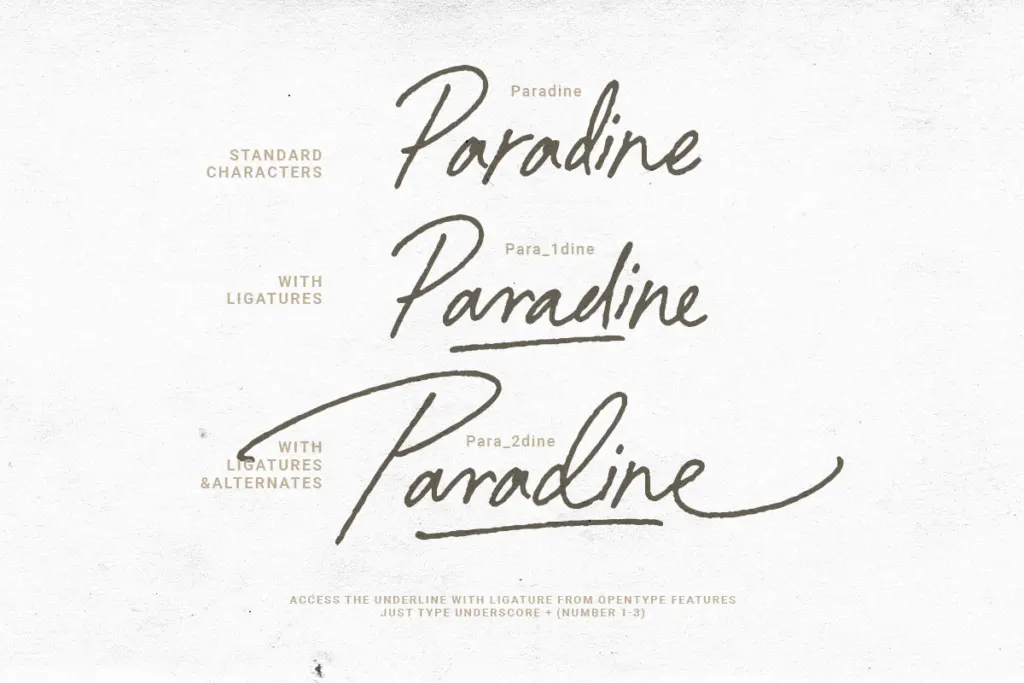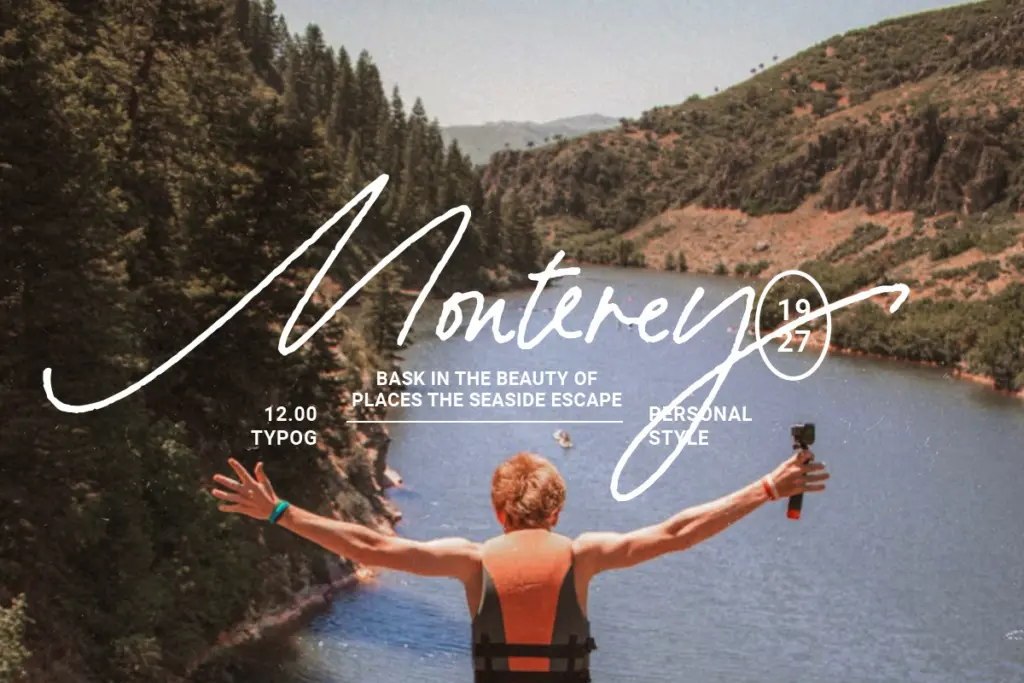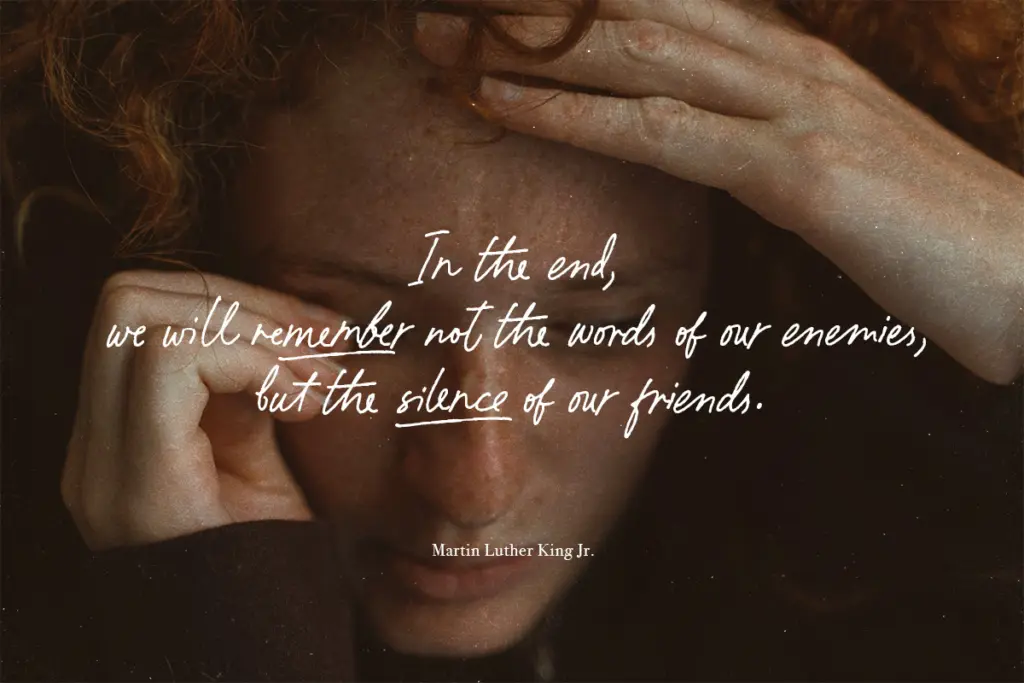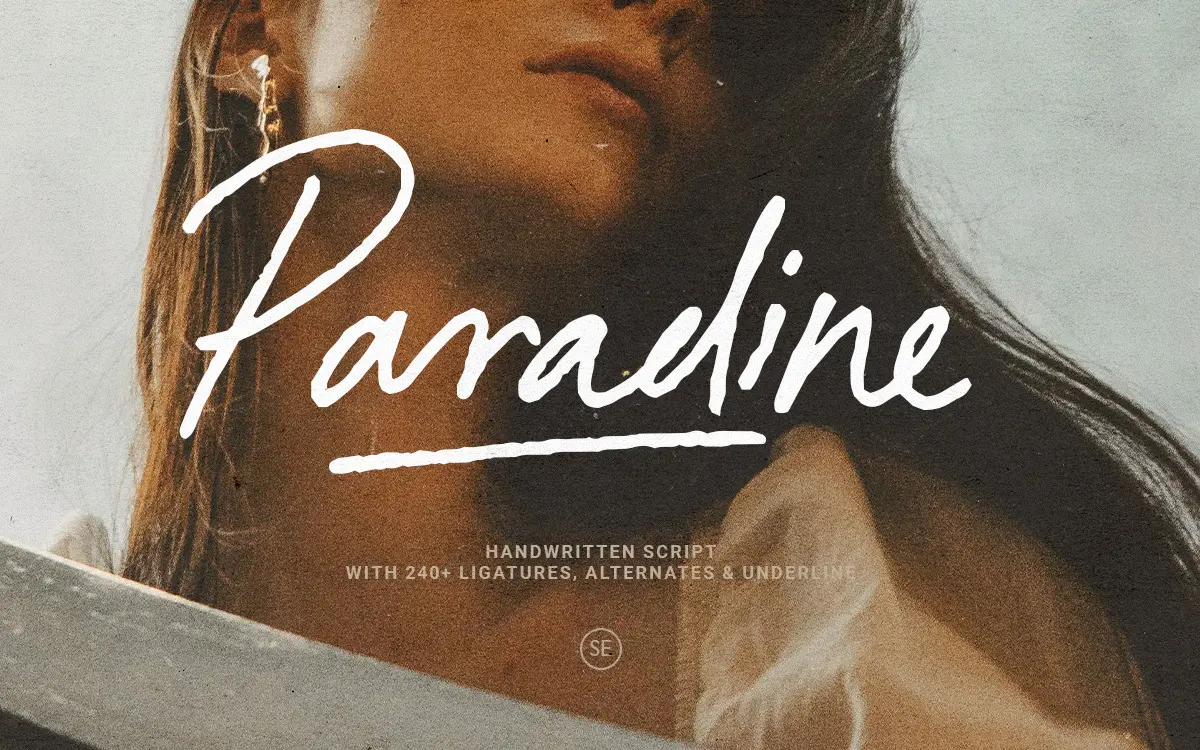
Paradine sits in the crowded field of handwritten signature scripts, but it earns its keep through a looser, more casual hand than most of its competitors. The strokes vary in weight without much drama — this isn’t a font chasing brush-pen contrast — and the baseline wanders just enough to suggest an actual pen moving across paper rather than a vector trace of one. Letters lean forward slightly and connect with a light touch, which keeps the overall texture calm rather than showy.
The alternate set changes the character noticeably. Where the default lowercase reads as tidy and legible, the alternates loosen up further, with exaggerated entry strokes and looping ascenders that push the font toward a more decorative register. It’s a useful distinction: one version for setting, one for a single dramatic word on a headline.
The ligatures are the actual selling point here, and they do real work. Common letter pairs — th, st, ct, and similar combinations — get custom joins that avoid the slightly mechanical look many script fonts fall into when connecting forms are generated rather than drawn. Used well, this is the difference between a script that looks assembled and one that looks written. It does mean the font rewards a bit of manual glyph substitution rather than being fully automatic in every app; designers working outside OpenType-aware software will miss some of this nuance.
Multi-language support is mentioned by the foundry, though the brief doesn’t specify which character sets are covered, so anyone working outside basic Latin should check glyph coverage before committing a project to it. The core alphabet, numerals and standard punctuation are all present and consistent in weight, which matters more than people expect — a lot of handwritten fonts get the letters right and then let the numbers look like an afterthought. Paradine doesn’t have that problem.
This is a font for short, personal-feeling text: a logotype, a product label, a line of a wedding invitation, a quote card for social media. It is not built for paragraphs. Like most connected scripts, Paradine loses clarity fast once you ask it to carry more than a sentence or two — the joins that make it charming at large sizes start to blur at body-copy scale.
Pair it sparingly with a plain sans or serif for supporting text, and let Paradine handle the one or two words that need warmth. The alternates are worth reserving for a single headline word rather than a whole line — used everywhere, the looping ascenders start fighting each other for space. Brands leaning into a handmade, boutique feel — stationery, small-batch packaging, fashion labels — are the obvious fit.
- Custom ligatures on common letter pairs avoid the mechanical look many scripts fall into
- Alternate glyph set offers a distinctly looser, more decorative option for headlines
- Numerals and punctuation match the weight and rhythm of the lowercase, which is often neglected
- Legibility drops quickly past a word or two, so it's unsuited to running text
- Full ligature and alternate benefits require OpenType-aware software, limiting ease of use elsewhere
Paradine is a competent handwritten script whose ligatures do genuine work in making joined letters feel drawn rather than assembled. It's best kept to short lines — logotypes, labels, a single headline word — rather than asked to carry body text.